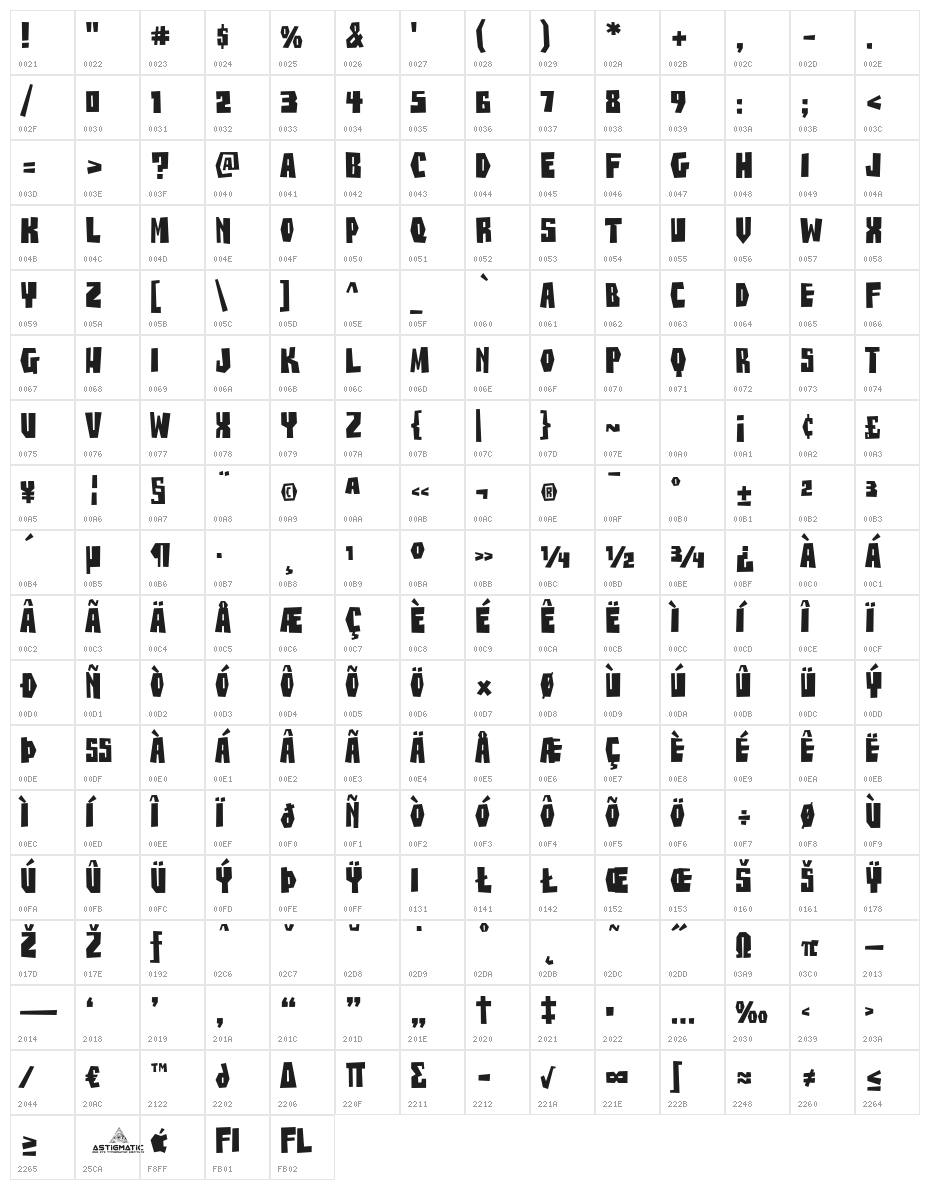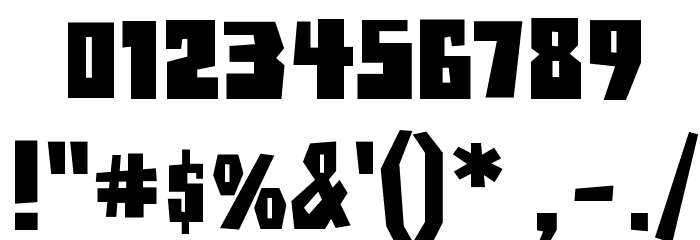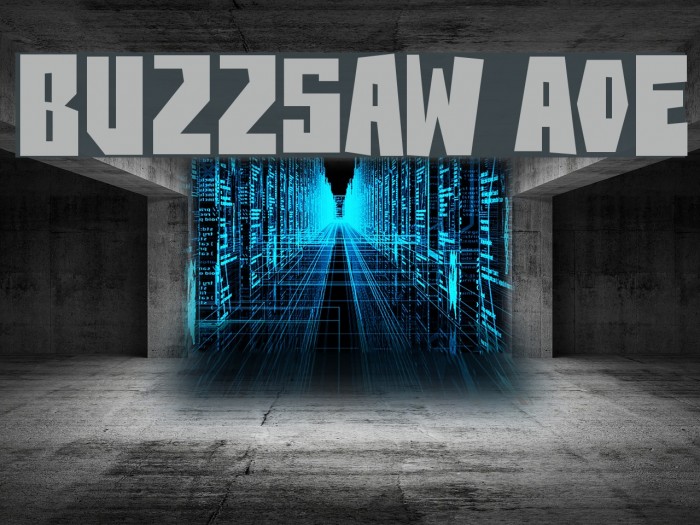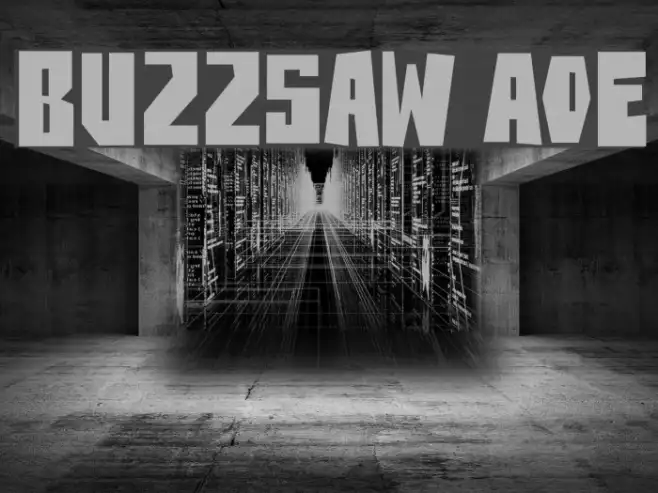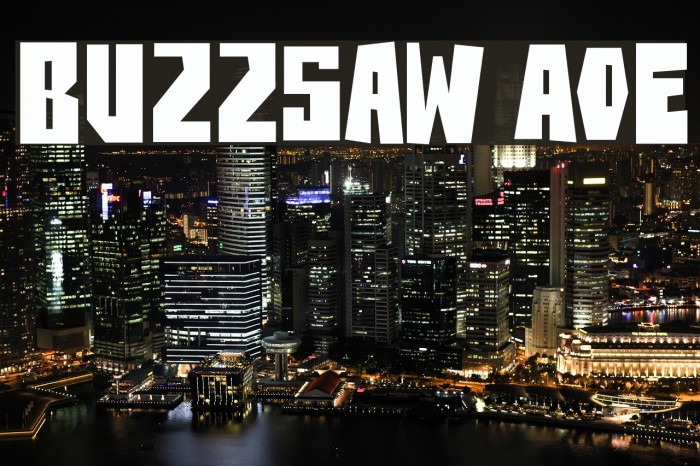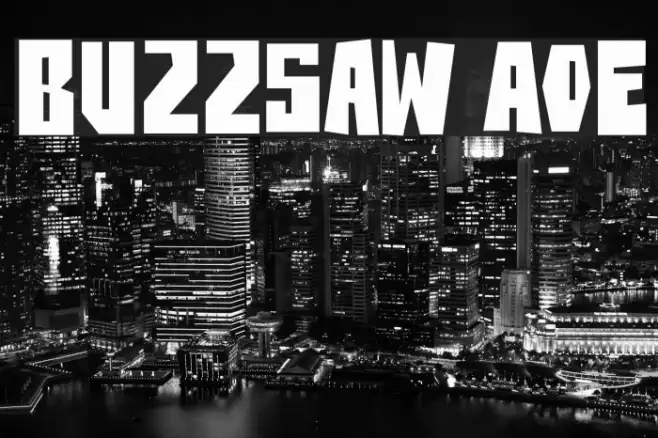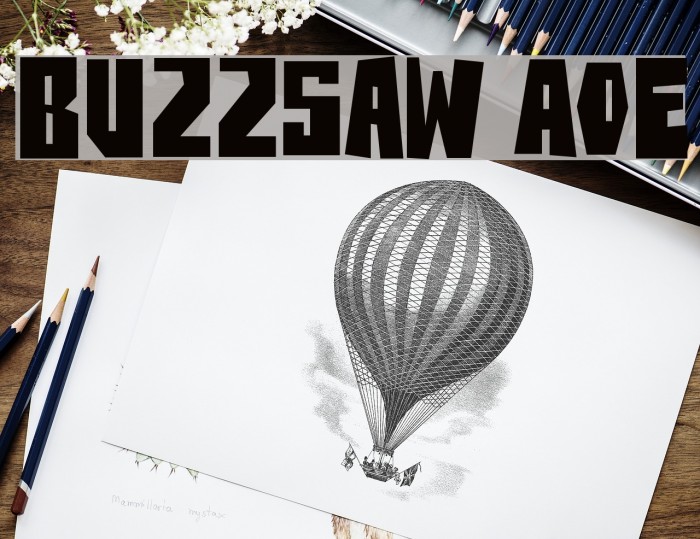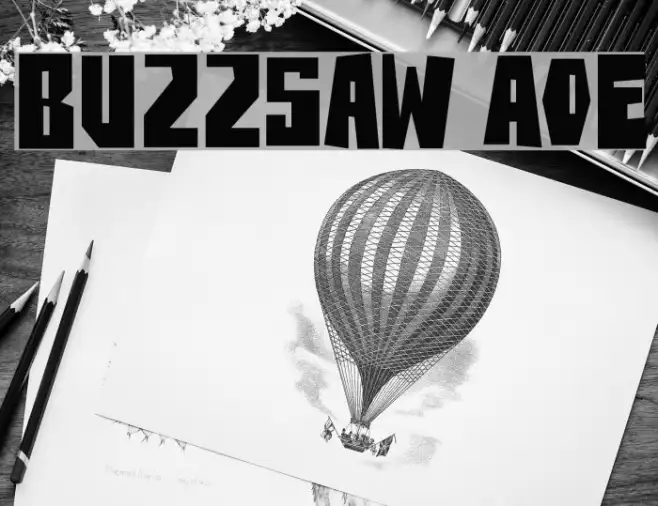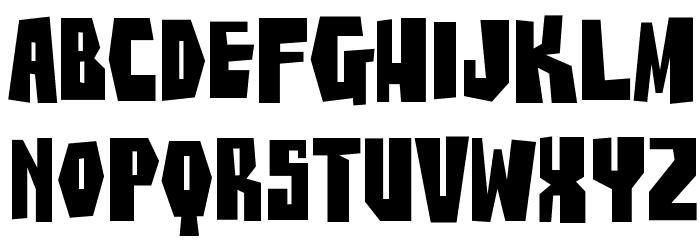
BuzzSaw AOE Font
BuzzSaw AOE Description
This font features a bold and edgy design with sharp, angular lines and a blocky appearance. The characters are heavily stylized, giving them a unique, almost aggressive look. The uppercase and lowercase letters maintain a consistent style, with exaggerated angles and a strong presence. Numbers and special characters follow the same bold and dynamic design, making them stand out. The overall aesthetic is reminiscent of industrial or mechanical themes, suitable for projects that require a strong visual impact.
| Overall Style | Modern, Industrial |
| Proposed Projects | Ideal for posters, logos, video game graphics, or any project needing a bold, impactful typeface. |